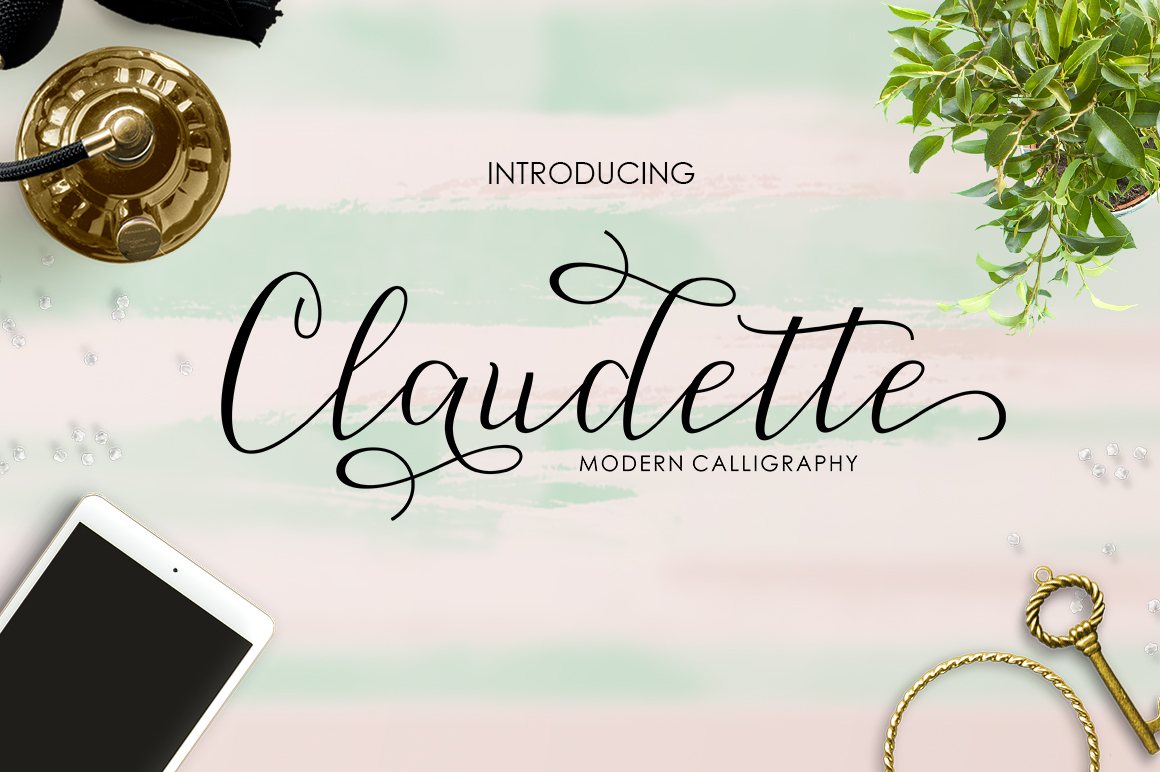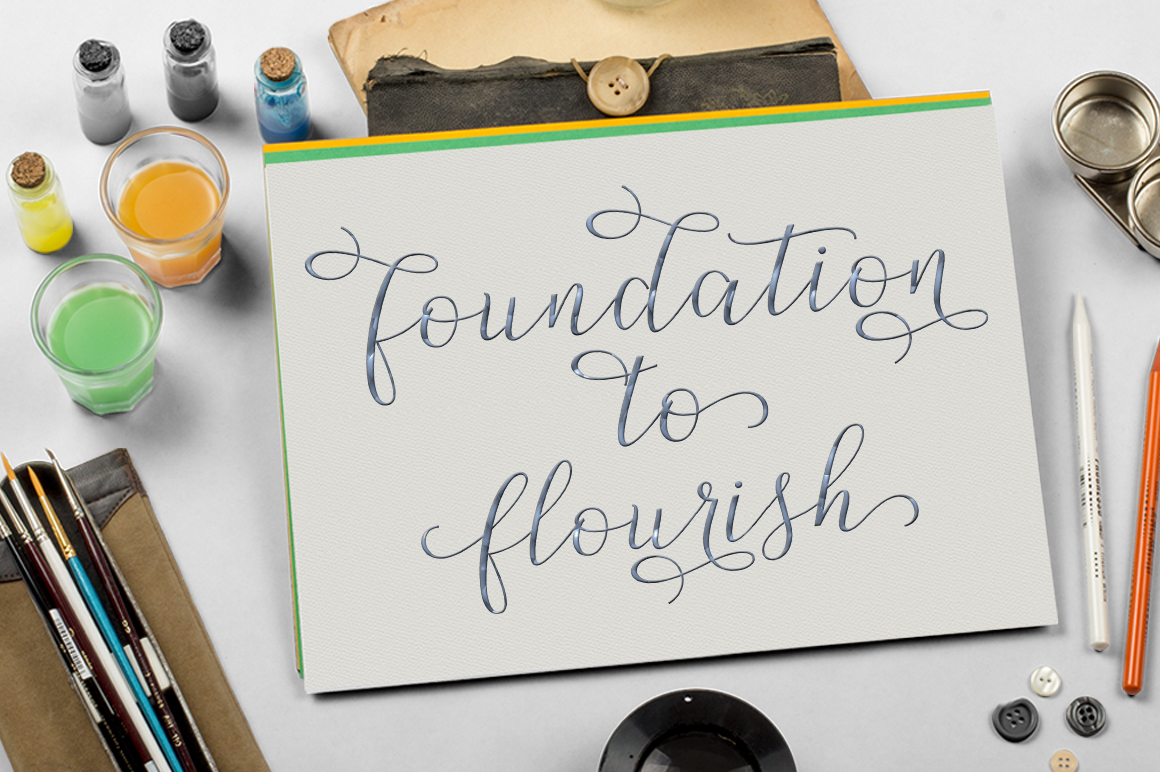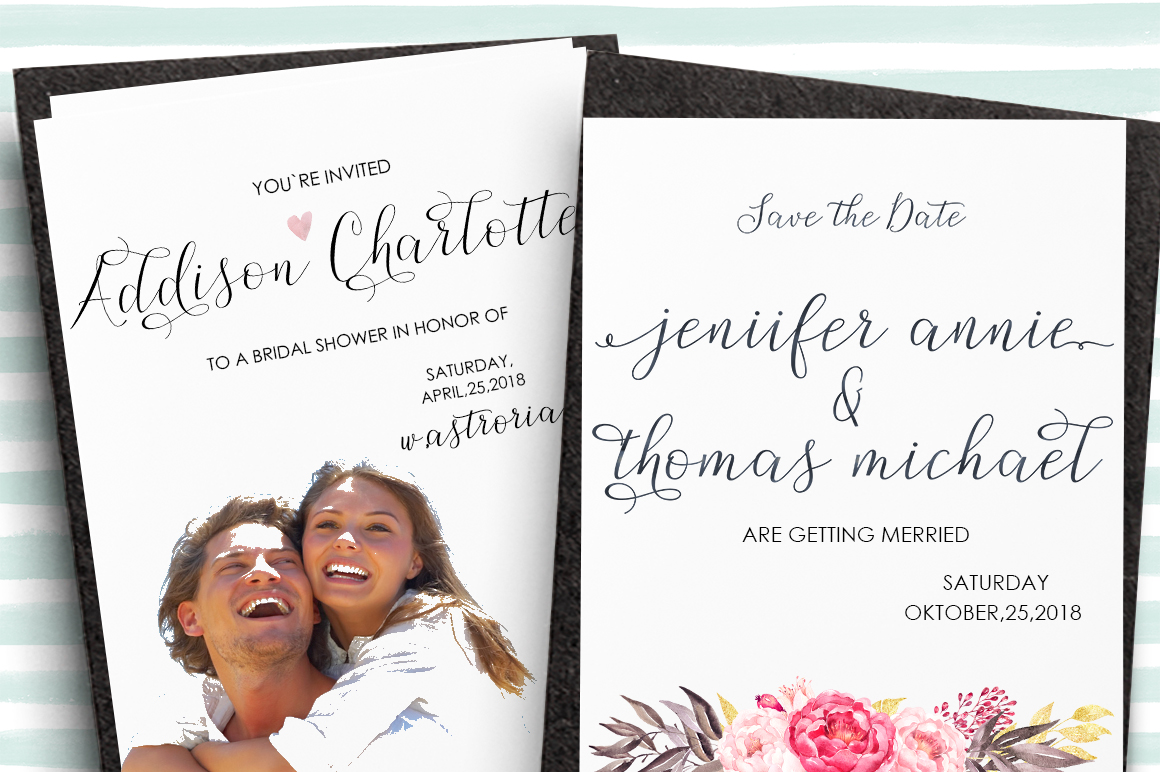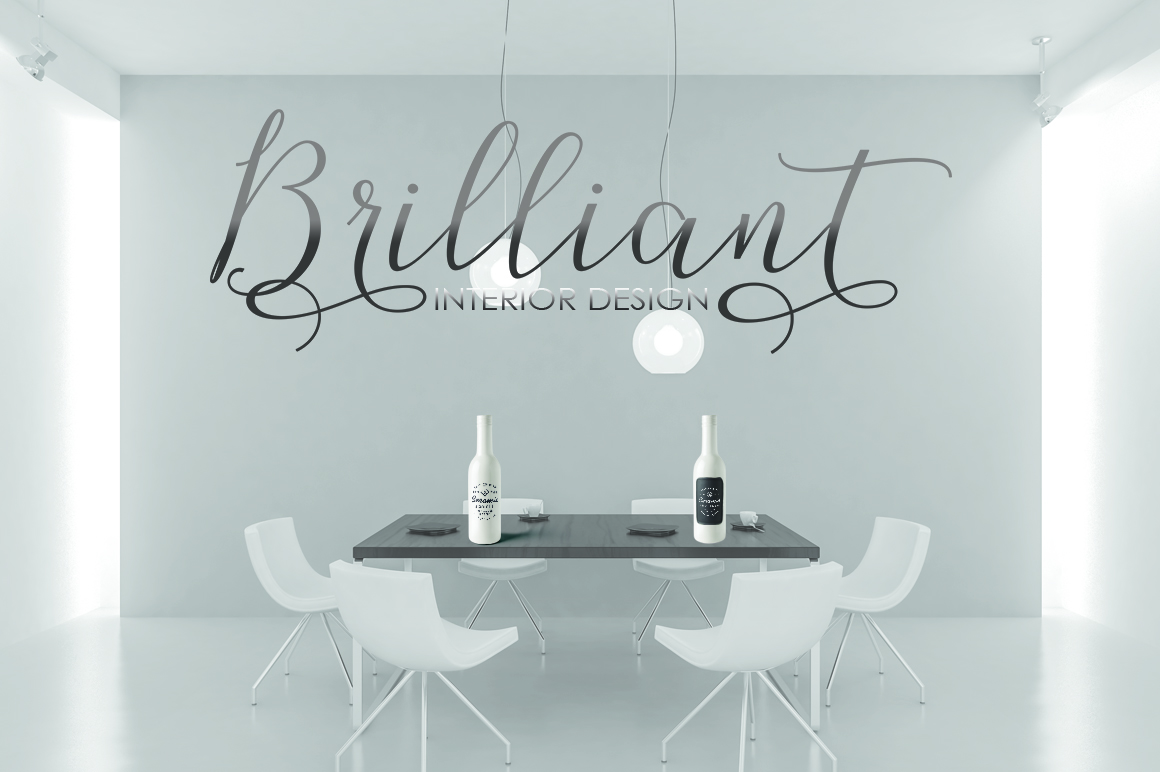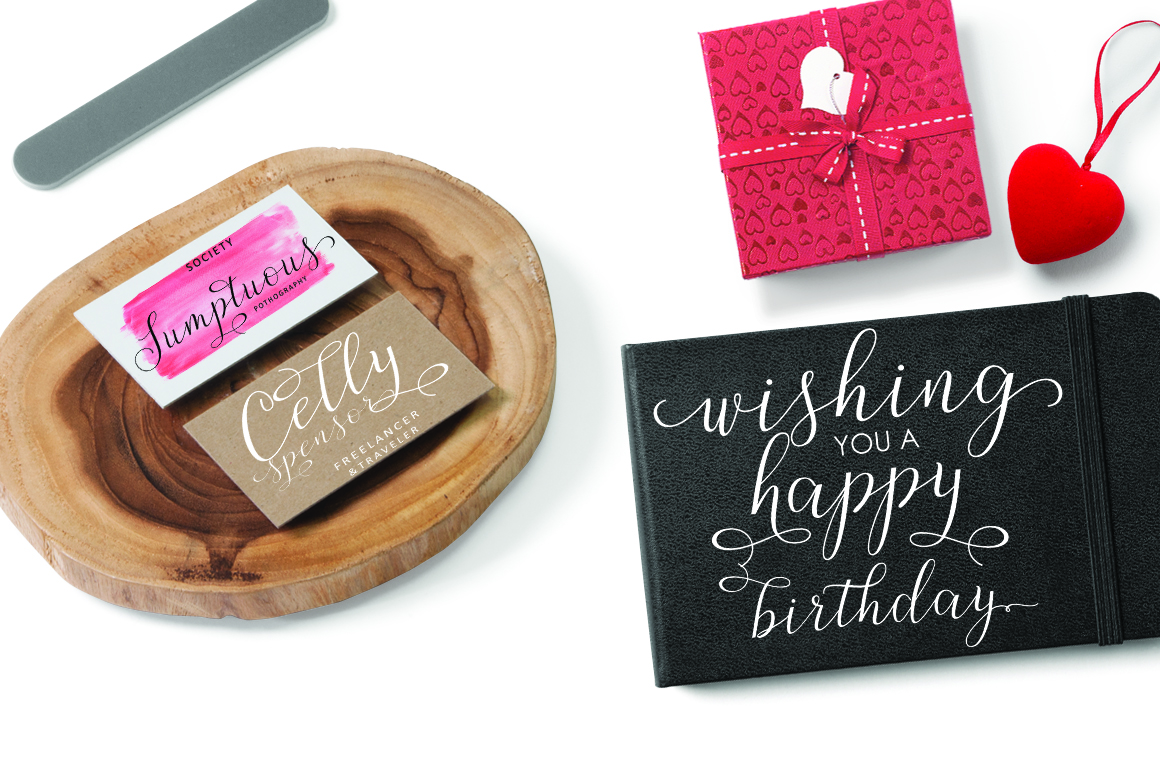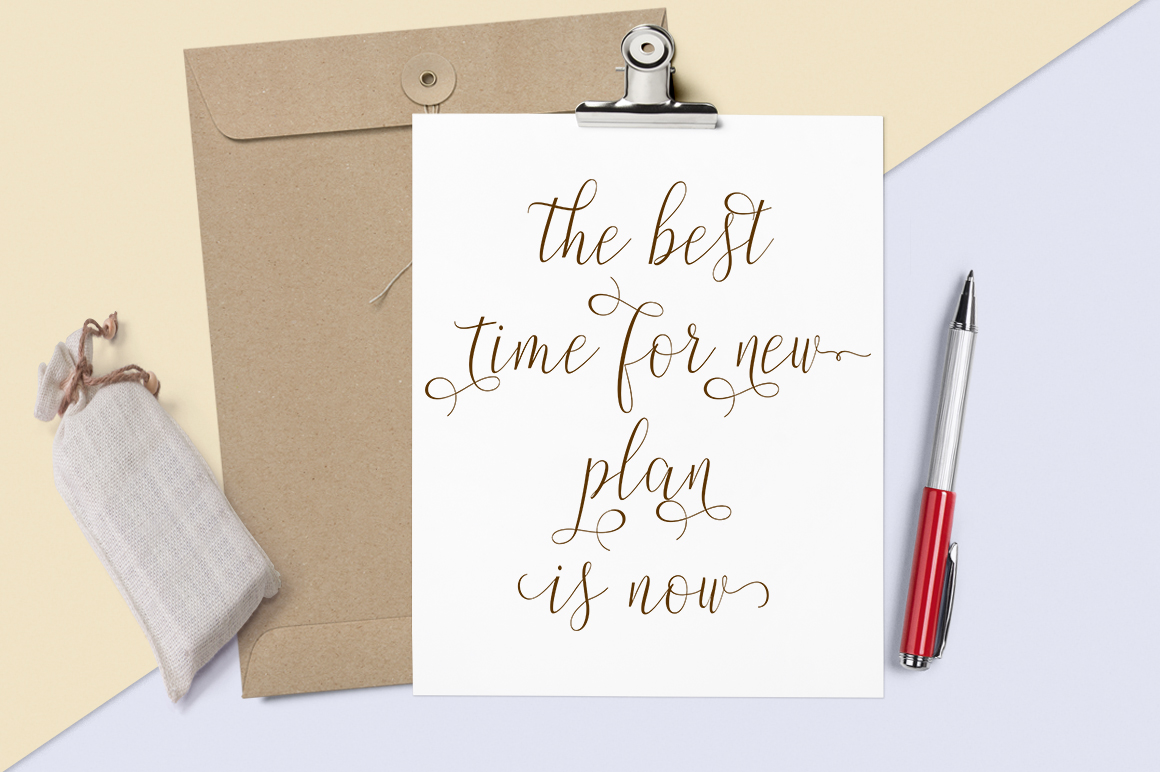
Claudette Font
About Claudette Font
Claudette is a modern script font that comes in 2 weights: Regular & Bold.
This stunning script comes packed with swashes.